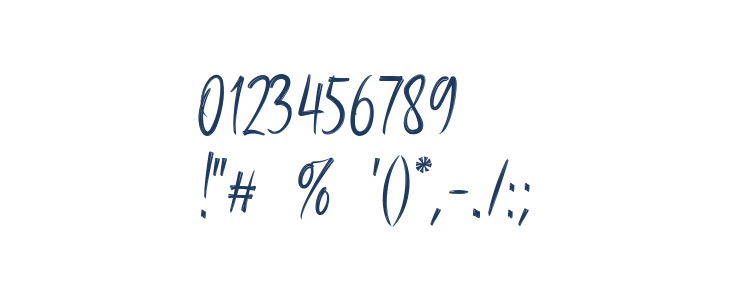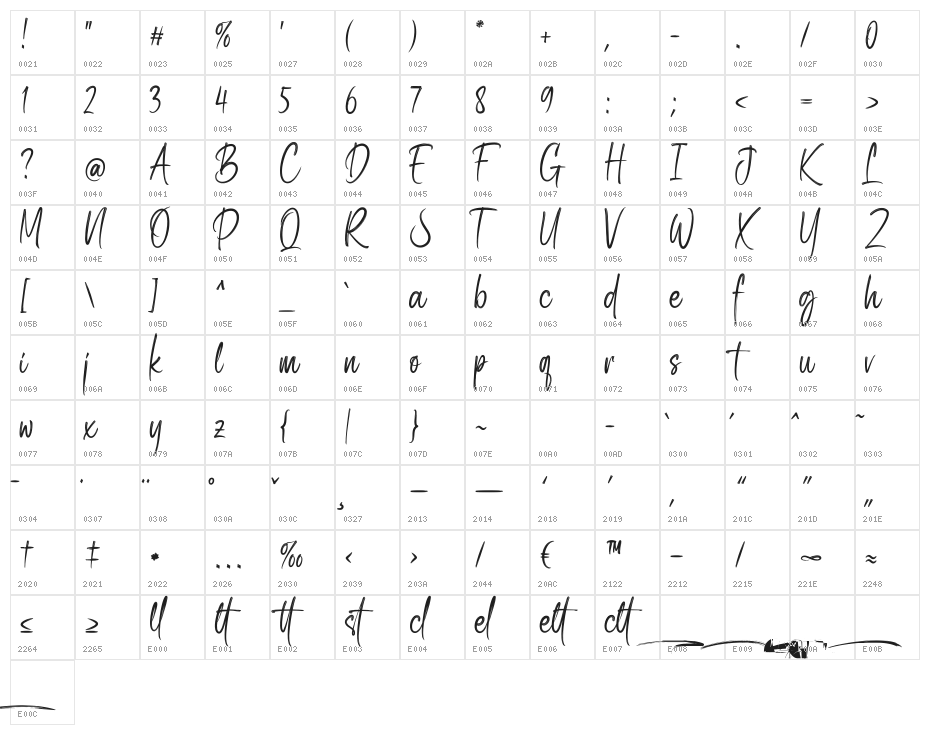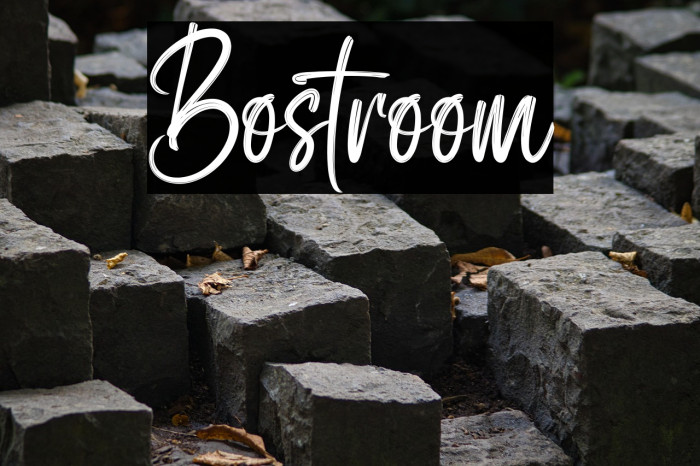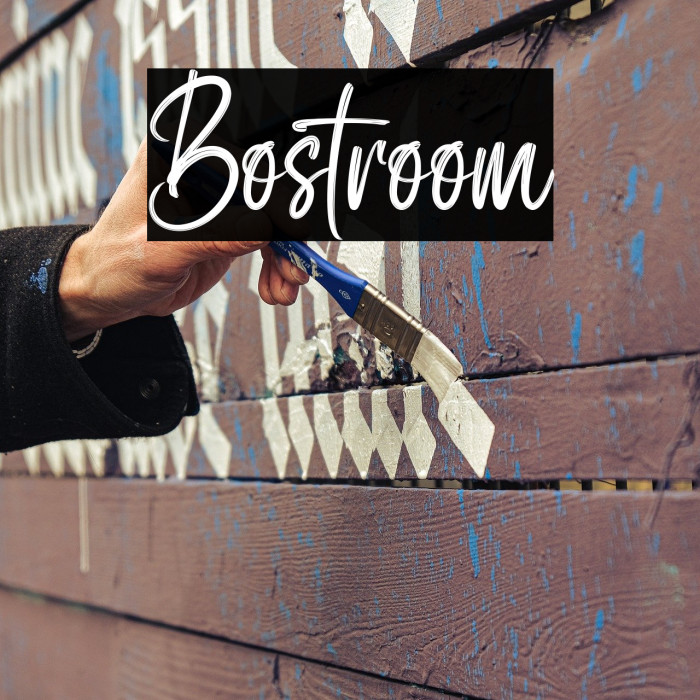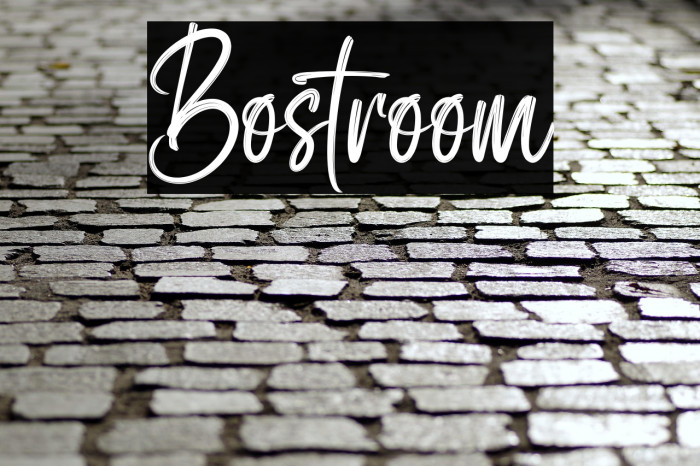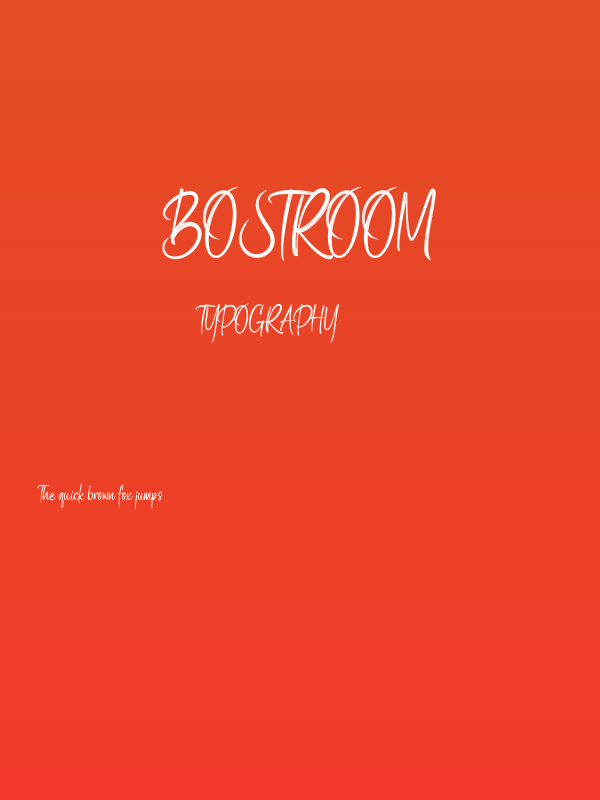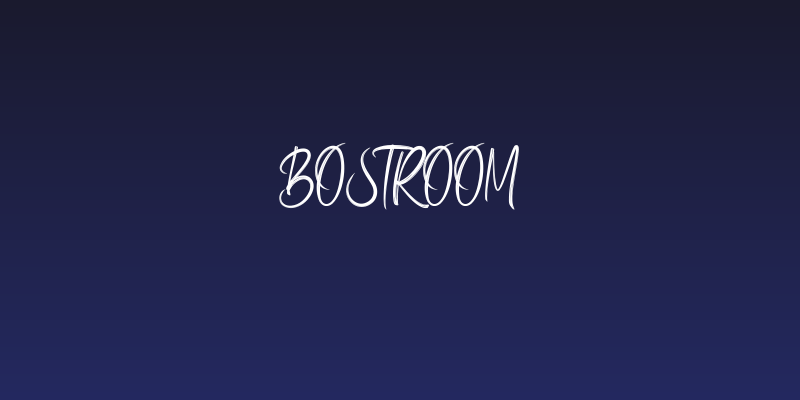
Bostroom Font
Bostroom Description
This font features a dynamic and energetic handwritten style, characterized by its fluid and expressive strokes. The uppercase letters are tall and slightly condensed, with a playful bounce that adds a sense of movement. The lowercase letters maintain a consistent flow, complementing the uppercase with their slightly slanted and connected forms. Numbers and special characters follow the same lively aesthetic, making the font versatile for various creative applications. The overall design exudes a casual yet stylish vibe, perfect for projects that require a personal touch.
| Overall Style | Casual, Energetic |
| Use Case | Logos, Headlines, Social Media |
| Proposed Projects | Ideal for greeting cards, invitations, personal branding, and social media graphics. |